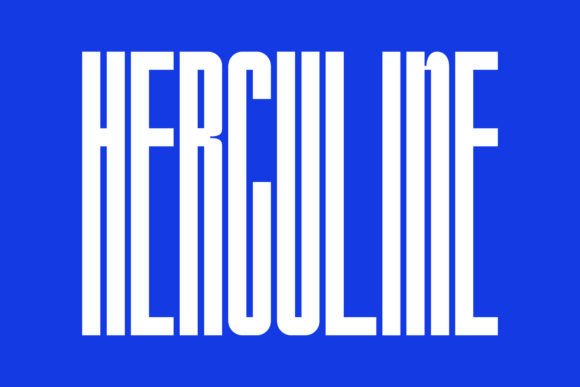
Unleash the visual power of your designs with Herculine Font, the ultimate display font crafted to redefine modern typography. Its towering letterforms, reminiscent of architectural marvels, will elevate your creative projects to new heights, capturing attention and leaving a lasting impression.
Through its innovative design, Herculine Font embodies the essence of sophistication and professionalism, making it the perfect choice for those seeking a contemporary touch in their work. Its ultra-condensed nature allows for efficient space utilization, while its clean lines and crisp edges ensure readability even at smaller sizes.
Experience the versatility of Herculine Font, which effortlessly adapts to a wide range of design projects, from captivating headlines and film titles to alluring cover magazines and captivating branding materials. Its ability to command attention makes it the ideal choice for creating impactful statements that resonate with your audience.
With Herculine Font as your creative ally, you'll embark on a journey of visual storytelling, captivating your audience with designs that exude boldness, elegance, and modernity. Whether you're a seasoned graphic designer or a creative entrepreneur, this font will elevate your projects to new levels of excellence.
Join the ranks of creative visionaries who have discovered the transformative power of Herculine Font. Its meticulously crafted characters and unwavering style will empower you to create designs that stand out, leaving an indelible mark on the hearts and minds of your audience.